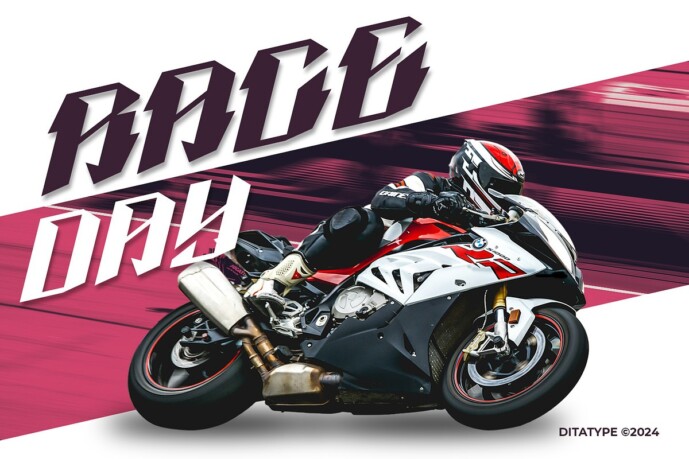
Stirle Font
Designer: Ditatype
Stirle Font-a bold display font inspired by the thrill and speed of racing. With its strong, impactful weight and consistent proportions, Stirle commands attention and adds a dynamic edge to any design. The unique, irregular outlines give the font an energetic, rugged feel, making it perfect for projects that need a touch of adrenaline. For optimal readability and to showcase its striking details, Stirle is best used in large sizes.